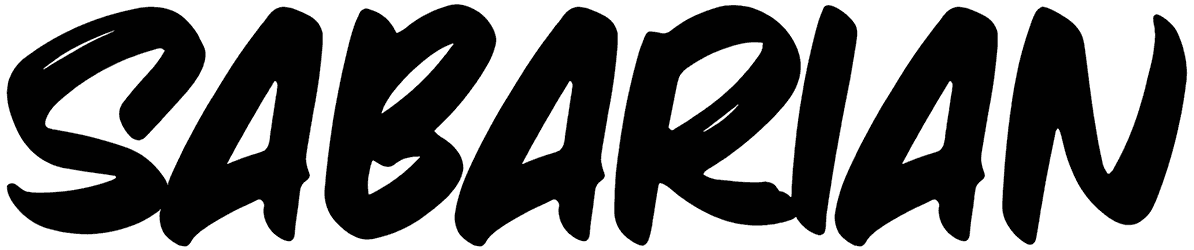
Sabarian Font
Sometimes you need a unique script font, the same as the Sabarian, to take all of your creative ideas, including magazines, applications, product packaging, digital banners, and stickers, to a higher level and turn them into a true piece of art.
This all-caps ninja font comes with angular and elongated letters, thus it can provide a feeling of jauntiness, tenderness, vivacity, and whimsical. Aside from not fully supporting numbers, it can be your first option in designing graphic content.